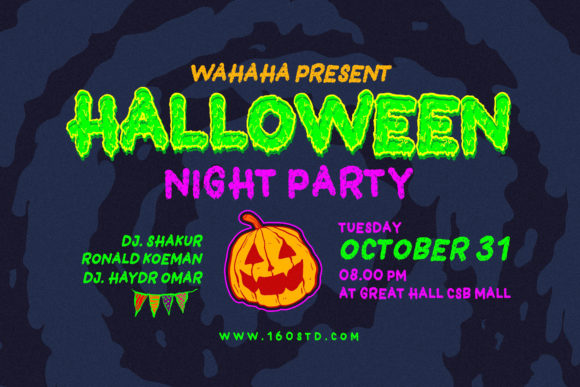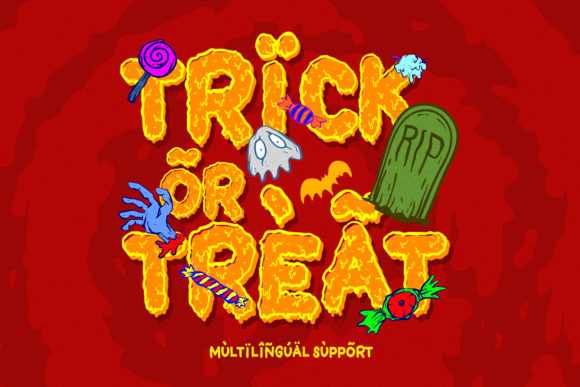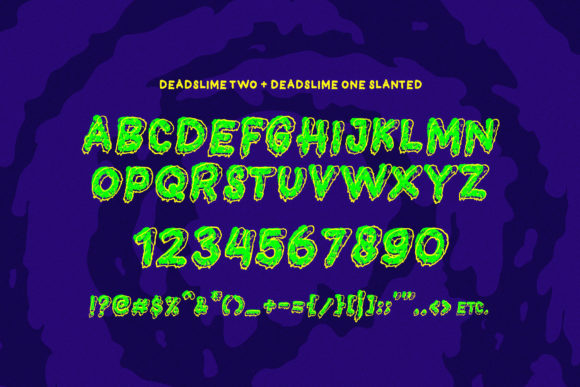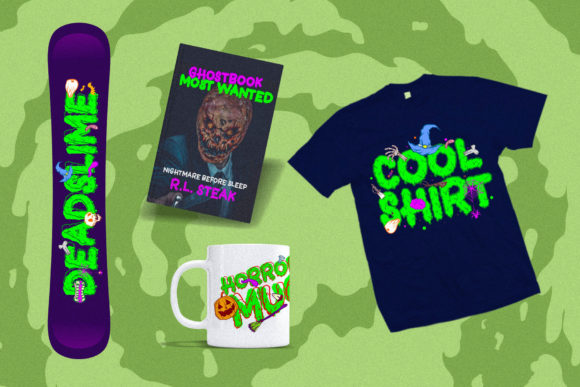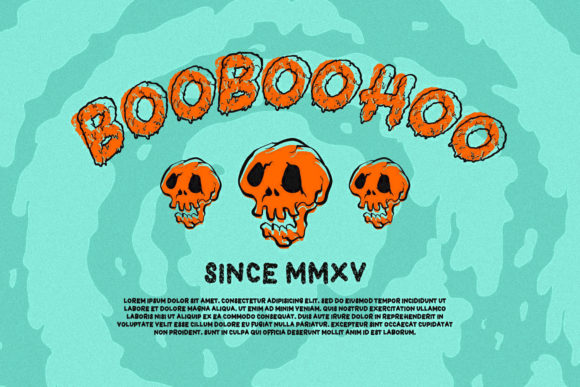
Unleash the Spookiness: Discover the Dead Slime Font
Are you ready to add a dash of spookiness to your designs this Halloween season? Look no further than the Dead Slime Font, an exciting Halloween-themed display font family that’s sure to cast a spell on your audience. With its eerie and playful appearance, this font is perfect for designers and crafters looking to create eye-catching and hauntingly beautiful projects.
The Spooky Charm of Dead Slime Font
Dead Slime Font is a unique and captivating typeface that’s specifically designed to evoke the spirit of Halloween. Its irregular shapes and bold lines give it a distinctive, slimy appearance that’s both mesmerizing and fun. The font’s design is inspired by the gooey, green texture of slime, which is sure to bring a smile to the faces of horror fans and Halloween enthusiasts alike.
Key Features of Dead Slime Font
- Halloween-themed design: Dead Slime Font is carefully crafted to capture the essence of Halloween, making it perfect for seasonal designs, party invitations, and spooky-themed projects.
- Display font: This font is designed to make a statement, with bold and eye-catching letters that are sure to grab attention.
- Multiple styles: Dead Slime Font comes in various styles, allowing you to experiment with different looks and moods to suit your design needs.
How to Use Dead Slime Font in Your Designs
Dead Slime Font is an incredibly versatile typeface that can be used in a wide range of design projects, including:
- Halloween party invitations: Create spooky and inviting party invites that set the tone for a howling good time.
- Social media graphics: Add a touch of Halloween magic to your social media posts and stories with eye-catching graphics featuring Dead Slime Font.
- Logos and branding: Use Dead Slime Font to create a unique and memorable logo for your Halloween-themed business or product.
- Crafting projects: Add a personal touch to your DIY crafting projects, such as Halloween decorations, cards, and gift tags.
Tips for Getting the Most Out of Dead Slime Font
To make the most of Dead Slime Font, try the following tips:
- Experiment with colors: Dead Slime Font looks great in bold, bright colors, but don’t be afraid to try out different hues to match your design’s mood and atmosphere.
- Mix and match styles: Combine different styles of Dead Slime Font to create a unique and visually interesting design.
- Add textures and effects: Give your design an extra layer of depth and interest by adding textures, shadows, or other effects.
| Author | 160 Studio |
Dead Slime Font is a fantastic addition to any designer’s toolkit, offering a unique and captivating way to add a touch of Halloween magic to your projects. With its bold, slimy appearance and versatile design, this font is sure to inspire your creativity and help you create spook-tacular designs that will leave a lasting impression. So why wait? Fall in love with Dead Slime Font and unleash your inner designer this Halloween season!